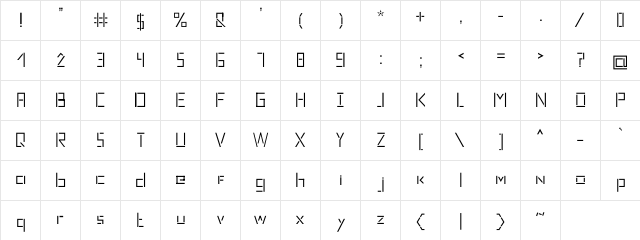
Sharp Cardinal Regular
Design Context for Sharp Cardinal Typeface
Sharp Cardinal offers clean, dependable letterforms without strong stylistic allegiance, making it a practical choice for designers who need flexibility.